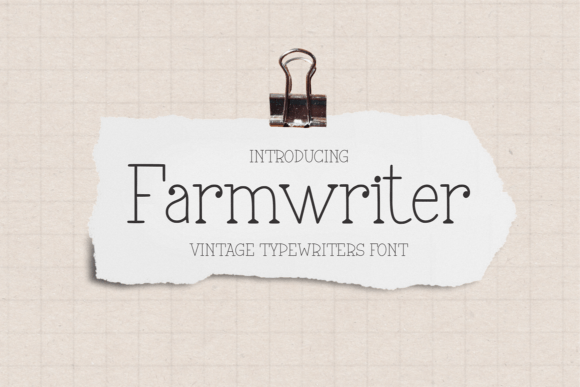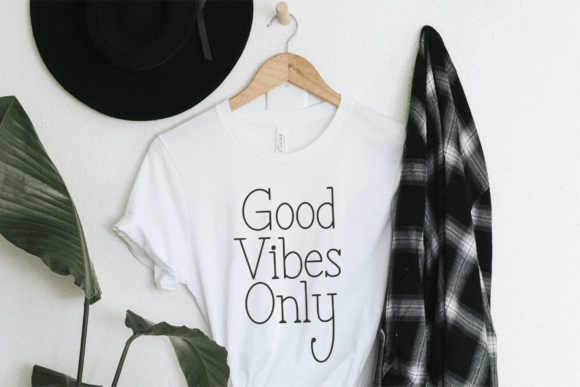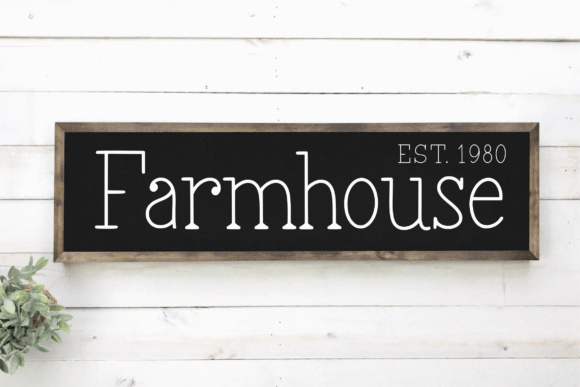
Farmwriter Font: A Playful Vintage Typewriter Font for Cricut Crafts
About the Farmwriter Font
Crafted with precision, the Farmwriter Font is ready to bring your ideas to life. Farmwriter is a fun vintage-typewriter display font that radiates a carefree spirit. With its friendly letterforms and approachable style, it brings a lighthearted charm to your designs. Ideal for projects that demand a relaxed and joyful aesthetic, Denjiro adds a delightful and easygoing flair to your creative expressions.
Farmwriter excels as a display font for headlines, short slogans, and branding elements where a playful, vintage feel is desired. It works particularly well in projects related to food, crafts, or events with a rustic or retro aesthetic. Avoid using it for body text or lengthy paragraphs; its playful nature and relatively wide letter spacing make it less legible for extended reading.
Pair Farmwriter effectively with clean sans-serif fonts like Open Sans or Lato for a balanced contrast between the vintage charm and modern readability. For a more playful combination, consider pairing it with a rounded geometric sans-serif such as Circular Std. A script font like Great Vibes could also complement its vintage vibe, creating a cohesive and slightly whimsical feel.
Farmwriter’s core personality is friendly and approachable, conveying a sense of nostalgia and lightheartedness. It is best suited for brands and projects that want to project warmth and a relaxed, carefree image.
Farmwriter Font Usage Examples
Farmwriter Font Example